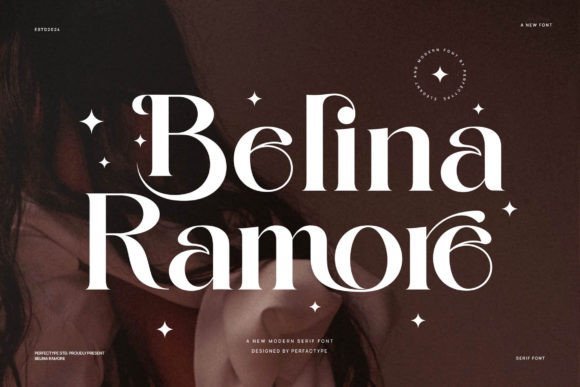
Introduction to Belina Ramore Font
Belina Ramore is an elegant serif font, that features a very delicate and classy look.
Not too thin and not too thick, balanced and varied, Belina Ramore was designed to enhance the beauty of your projects .